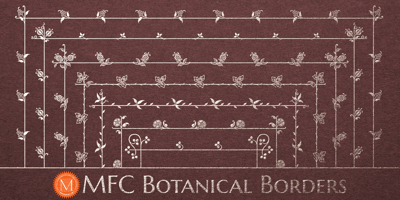
MFC Botanical Borders Font Family was designed by Jim Lyles, Brian J. Bonislawsky and published by Monogram Fonts Co.. MFC Botanical Borders contains 1 styles and family package options. The inspiration source for MFC Botanical Borders is a collection of border treatments from the 1886 “Spécimens de caractères d’imprimerie” by E. Houpied a Paris. This collection of elegant floral and foliage borders has been put together with their original decorated rules, as well as alternate matching precision rules for added versatility. You can start with a new document or work on a new layer within an existing document. Select MFC Botanical Borders from the font menu. (Some users may have font previewing enabled in the font menu which will cause the font name to appear as border elements, disable this option in order to choose the name) Make certain that the point size of the font is the same as the leading being applied to the font so the borders will meet up properly. While we’ve adjusted this within the font, your program may override these settings. For instance a 12 point font should have 12 points of leading. A PDF guidebook for MFC Botanical Borders is included in the font package. Download and view the MFC Botanical Borders Guidebook if you would like to learn a little more.